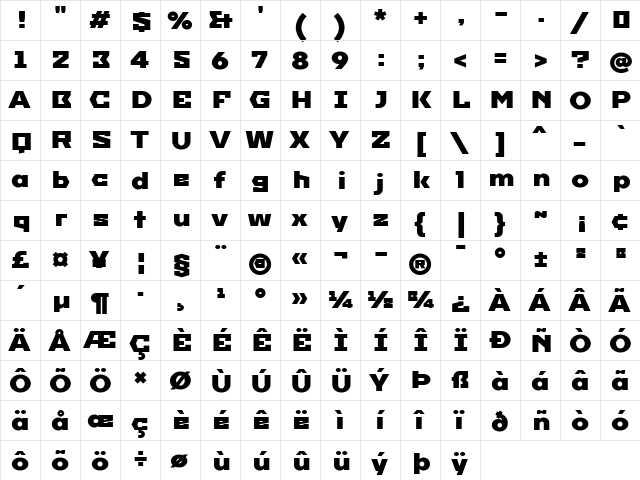
Imperial One Regular
| Foundry | Jovanny Lemonad |
| Designer | Jovanny Lemonad |
Design Context for Imperial One Typeface
Imperial One is a composed and adaptable typeface that performs quietly and consistently across a wide range of design contexts.